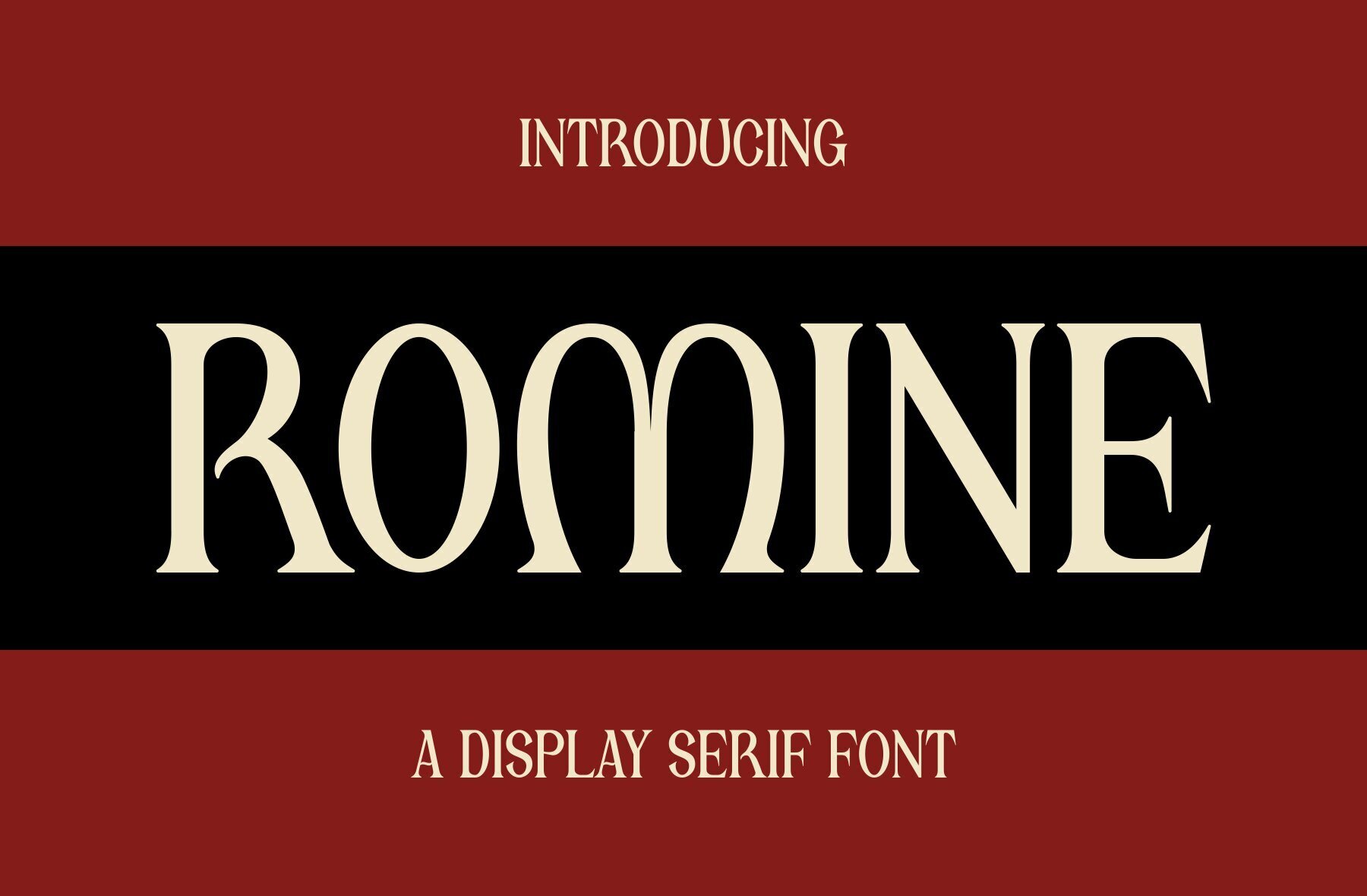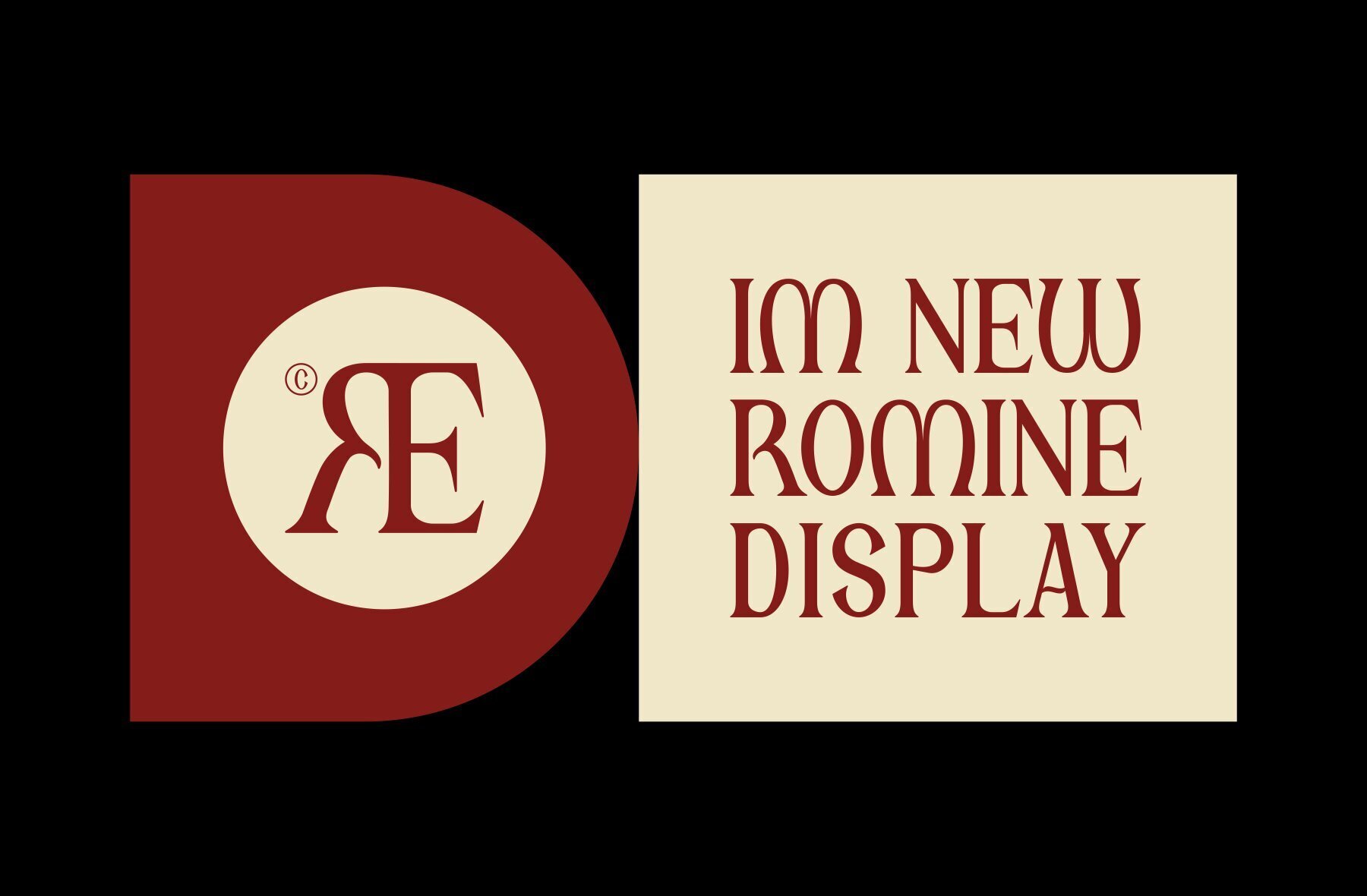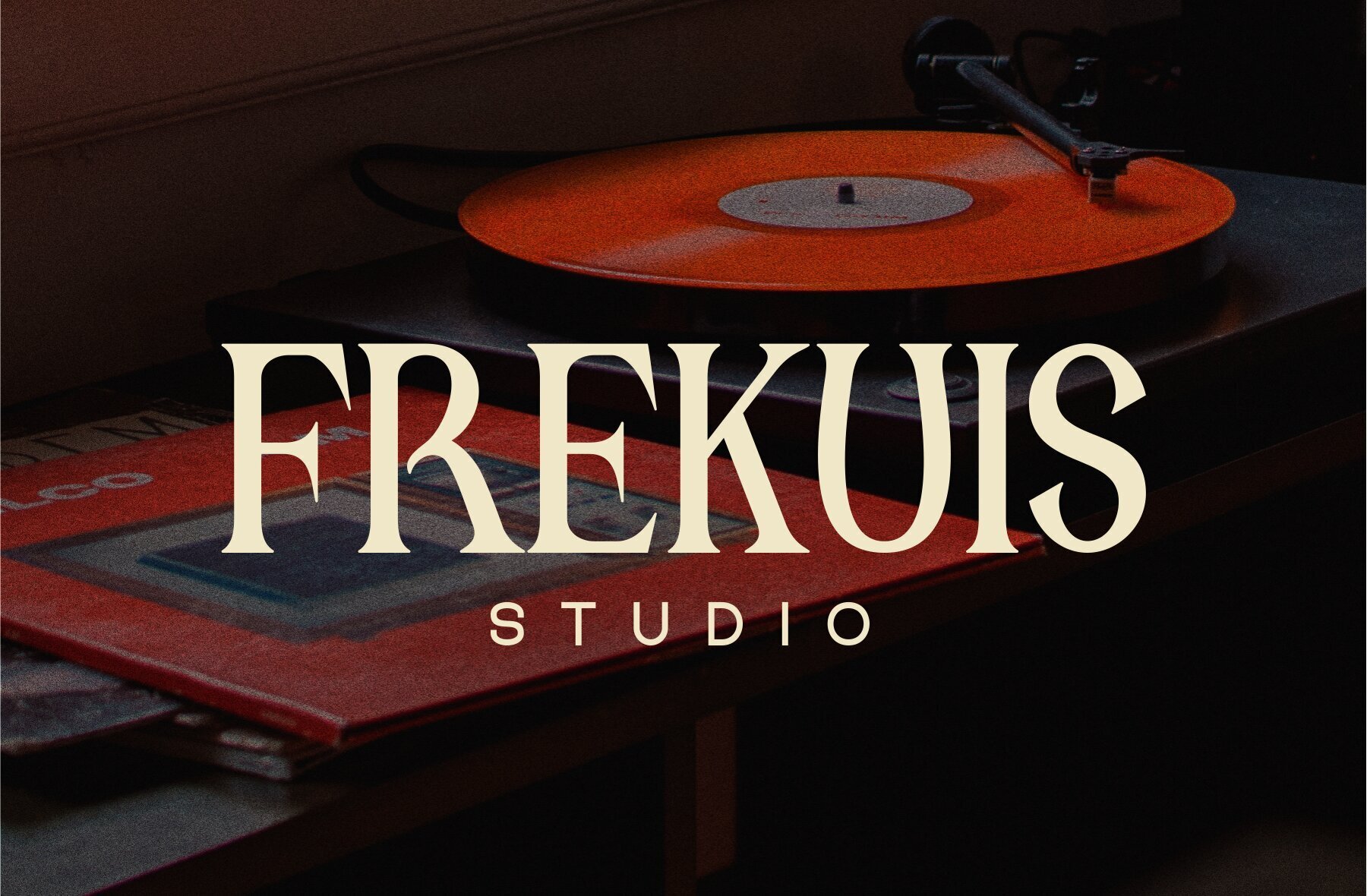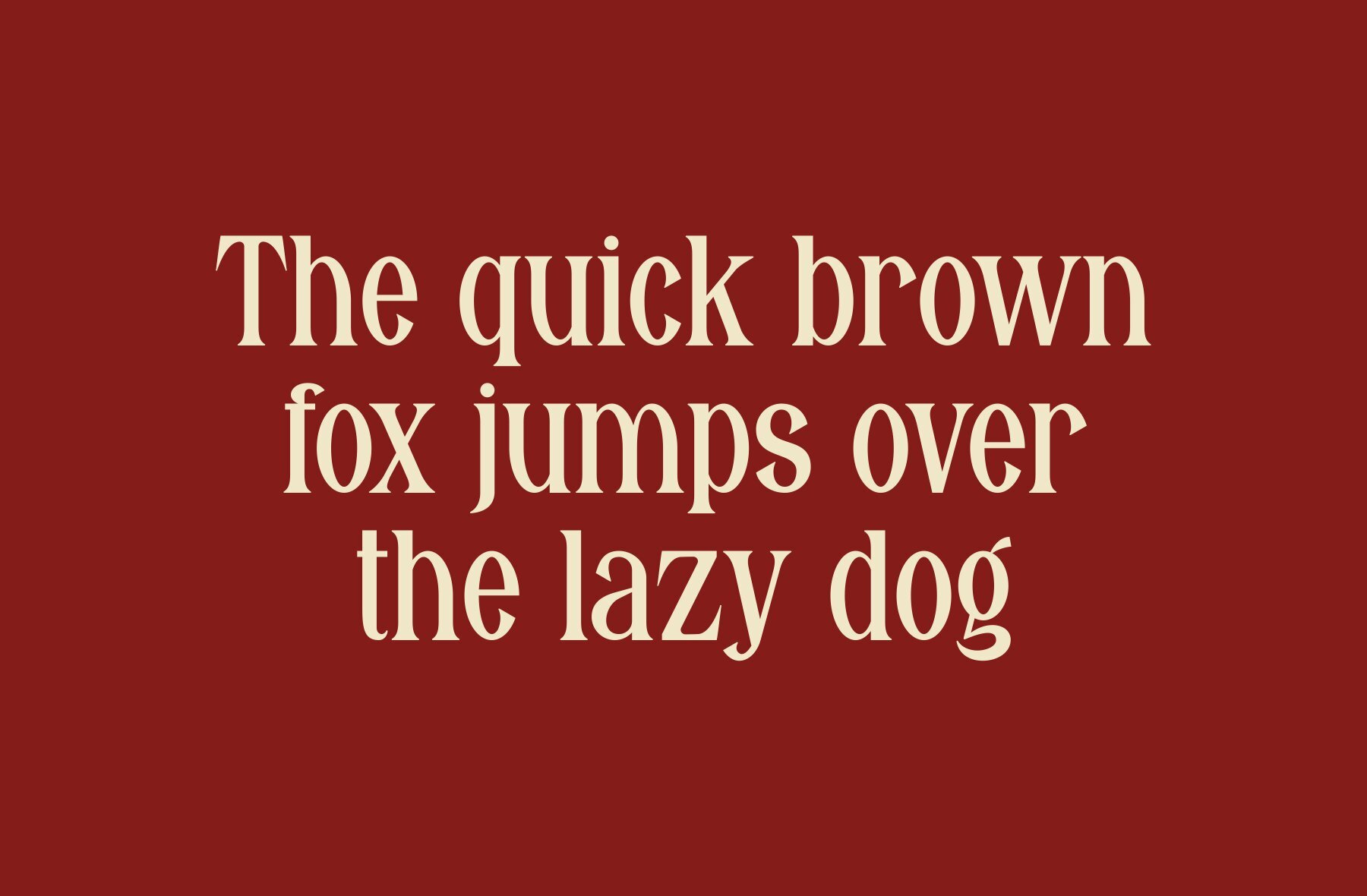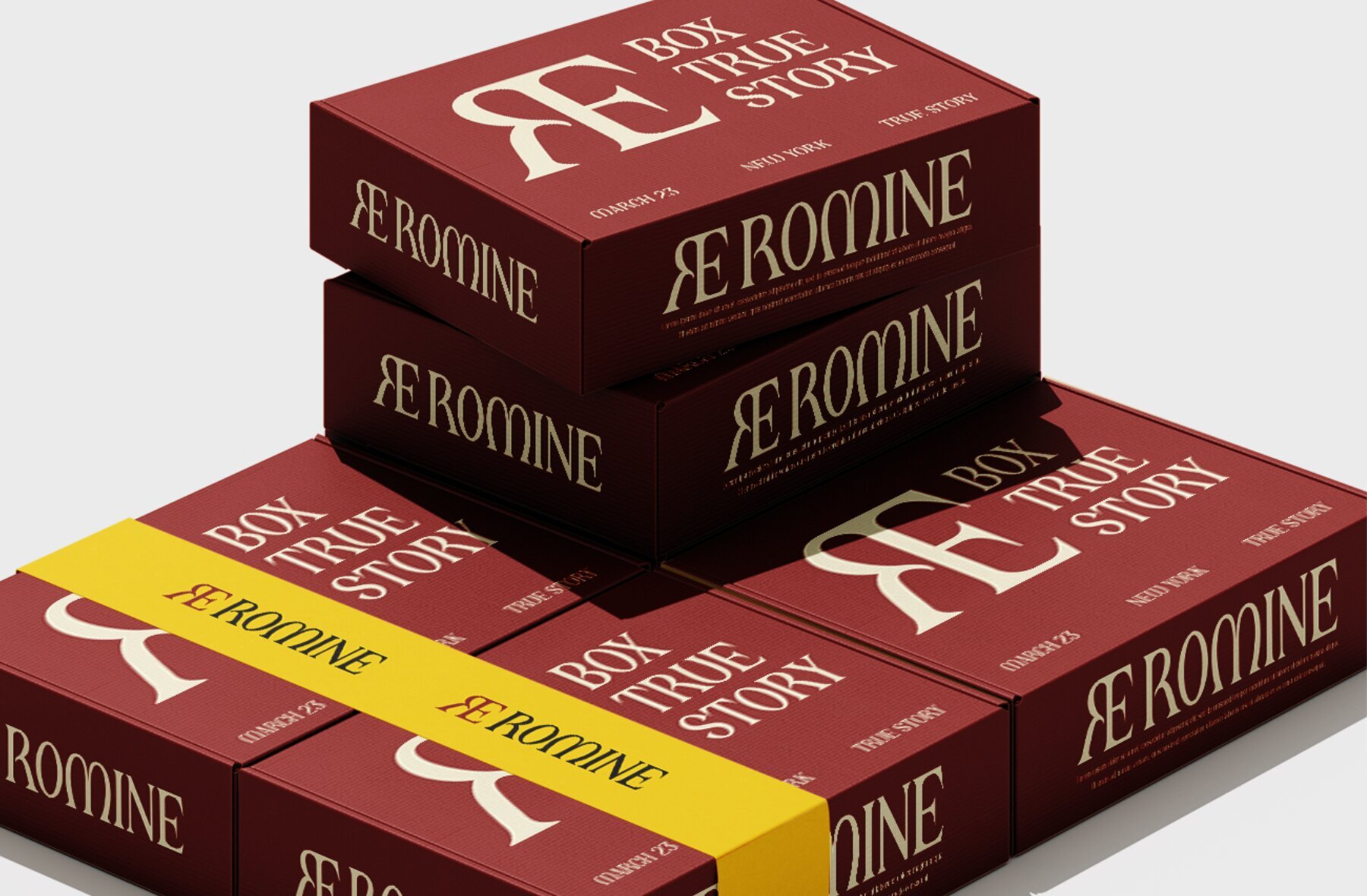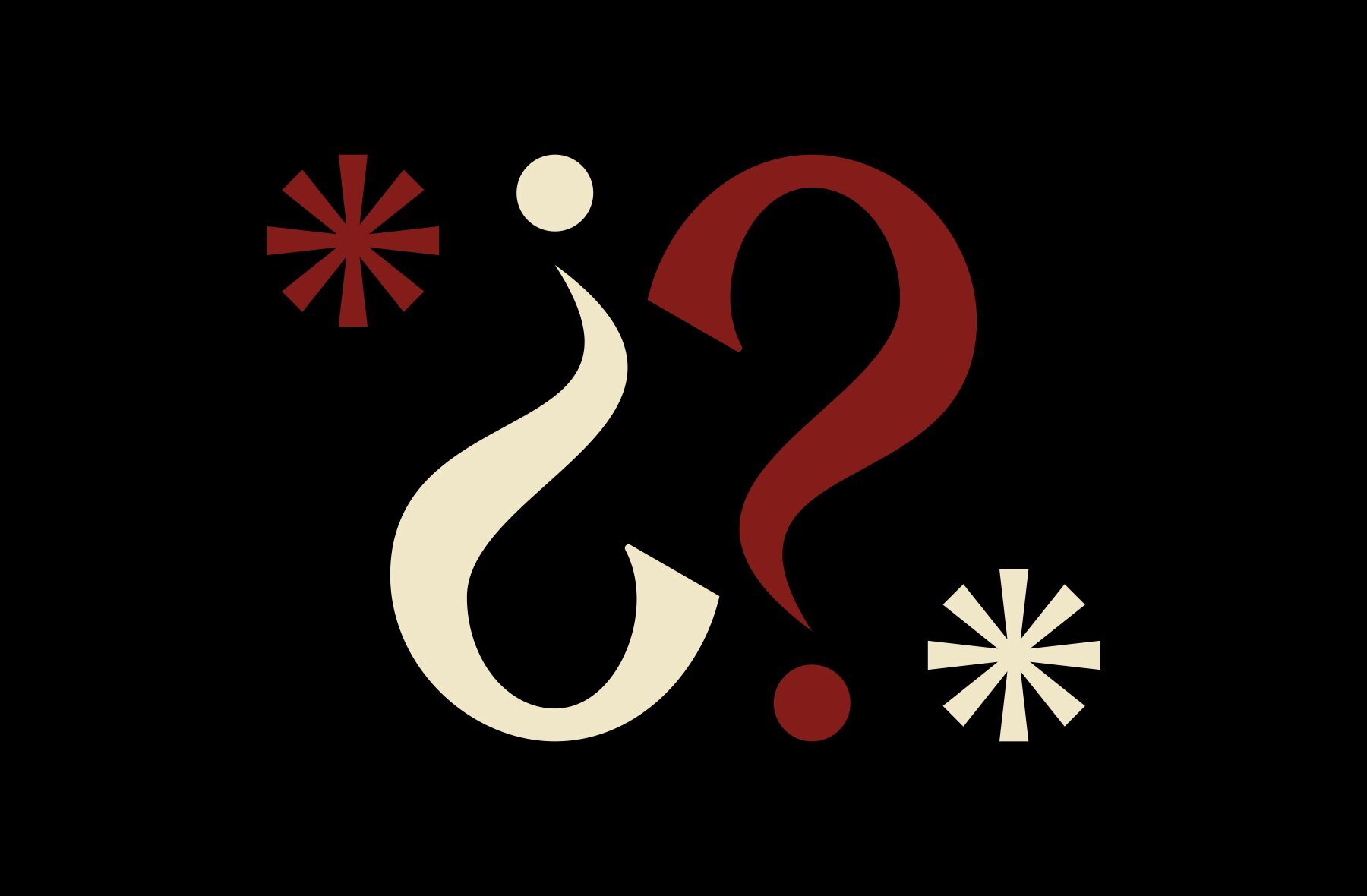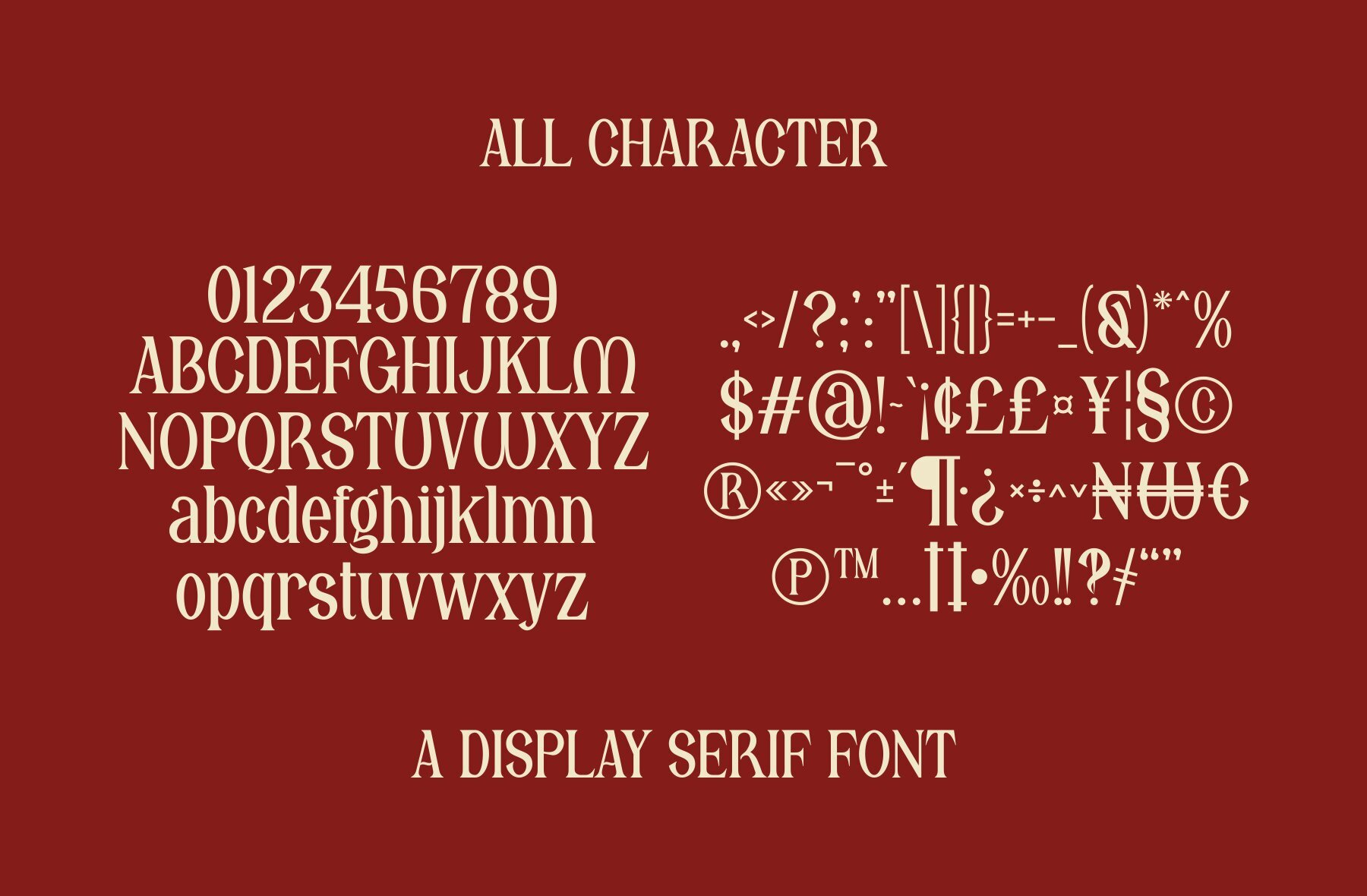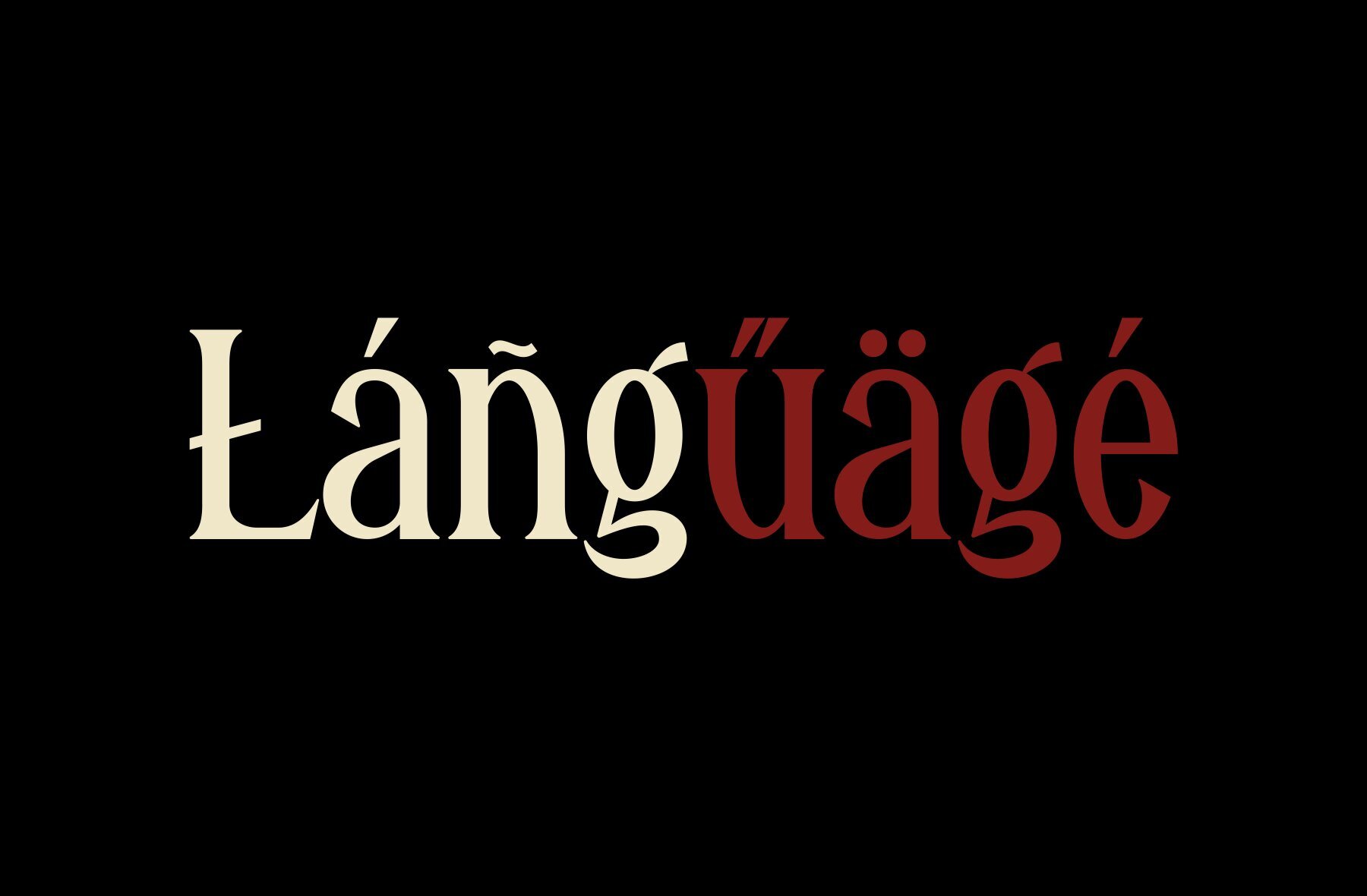
Romine Font
Romine Regular
Romine is a serif display font that exudes elegance and grace, designed to make a strong yet refined visual impact. Its distinctive character lies in intricate, well-balanced letterforms that combine classical serif elements with a modern sensibility. Each letter is meticulously crafted to convey sophistication and timeless beauty, making Romine an excellent choice for projects that require luxury and distinction.
Whether used in branding, editorial design, or high-end packaging, Romine brings an air of refinement and style to any project. Its refined aesthetics transform the overall look of your designs, adding a touch of sophistication and timeless elegance. Perfect for designers seeking to create visually compelling and elegant work, Romine effortlessly enhances the quality and beauty of your creative projects.